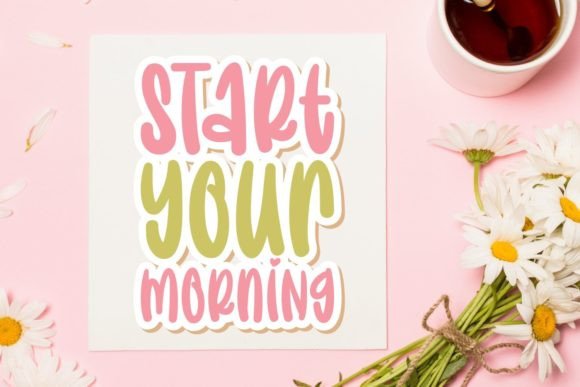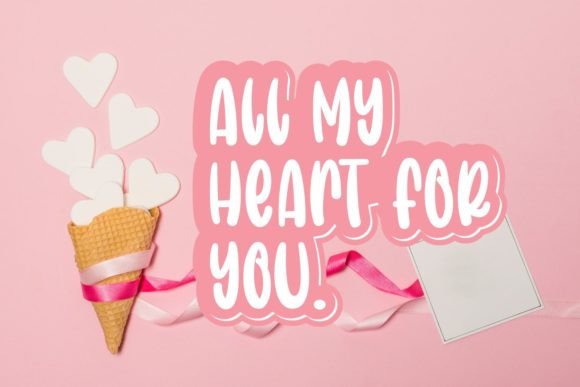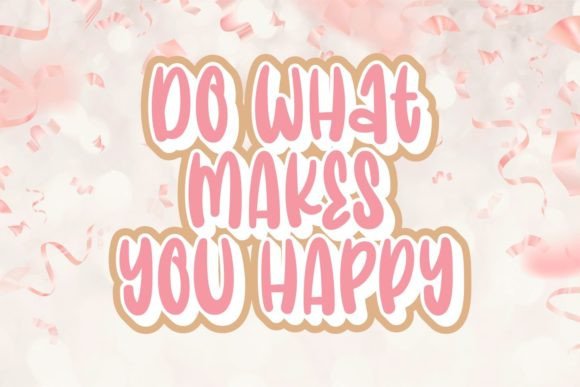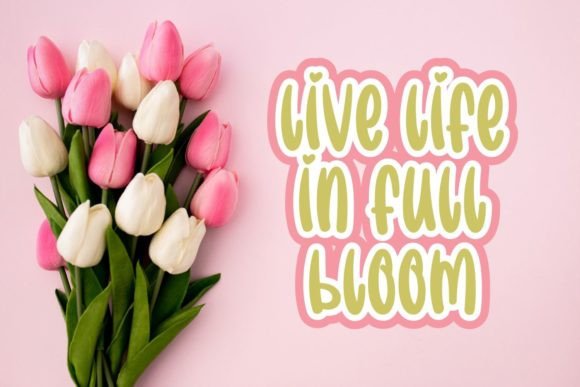
Introducing Afiyah Hijanah Font: The Ultimate Romantic Script Font
Are you a designer or crafter looking for a font that can add a touch of romance and elegance to your projects? Look no further than Afiyah Hijanah Font. This beautiful handwritten font is perfect for a wide range of applications, from greeting cards to headlines, and is sure to make your designs stand out.
What is Afiyah Hijanah Font?
Afiyah Hijanah Font is a lovely and versatile script font that is designed to bring a touch of warmth and personality to your designs. With its flowing lines and delicate curves, this font is perfect for creating beautiful and eye-catching text that will capture the attention of your audience.
Key Features of Afiyah Hijanah Font
- Cute and Lovely Design: Afiyah Hijanah Font features a unique and adorable design that is sure to make your designs stand out.
- Handwritten Style: This font features a beautiful handwritten style that gives it a personal and touchable feel.
- Versatile: Afiyah Hijanah Font is perfect for a wide range of applications, from greeting cards to headlines, and can be used for both personal and commercial projects.
- Romantic Feel: This font is guaranteed to add a romantic feel to your designs, making it perfect for wedding invitations, Valentine’s Day cards, and other romantic projects.
Uses of Afiyah Hijanah Font
Afiyah Hijanah Font is a versatile font that can be used for a wide range of projects, including:
- Greeting Cards: Create beautiful and personalized greeting cards for special occasions like birthdays, weddings, and holidays.
- Headlines: Use Afiyah Hijanah Font to create eye-catching headlines for your blog posts, articles, and social media posts.
- Wedding Invitations: Add a touch of romance and elegance to your wedding invitations with Afiyah Hijanah Font.
- Branding: Use this font to create beautiful and memorable brand names, taglines, and slogans.
- Crafting: Afiyah Hijanah Font is perfect for crafters who want to add a personal touch to their projects, such as scrapbooking, journaling, and card making.
Why Choose Afiyah Hijanah Font?
There are many reasons why you should choose Afiyah Hijanah Font for your next project. Here are a few:
- Unique Design: Afiyah Hijanah Font features a unique and adorable design that will make your projects stand out.
- Easy to Read: This font is easy to read, even in small sizes, making it perfect for body text and captions.
- High-Quality: Afiyah Hijanah Font is a high-quality font that is designed to deliver exceptional results.
Tips for Using Afiyah Hijanah Font
Here are a few tips for using Afiyah Hijanah Font:
- Use it for Headlines: Afiyah Hijanah Font is perfect for headlines and titles, so use it to create eye-catching text that will grab the attention of your audience.
- Pair it with Other Fonts: Experiment with pairing Afiyah Hijanah Font with other fonts to create a unique and interesting look.
- Use it for Body Text: While Afiyah Hijanah Font is perfect for headlines, it can also be used for body text, especially for short paragraphs and captions.
| Font Name | Afiyah Hijanah Font |
| Author | Rifki (7ntypes) |
Afiyah Hijanah Font is a beautiful and versatile script font that is perfect for designers and crafters who want to add a touch of romance and elegance to their projects. With its unique design, easy readability, and high-quality construction, this font is sure to deliver exceptional results. Whether you’re creating greeting cards, headlines, or branding materials, Afiyah Hijanah Font is a great choice.